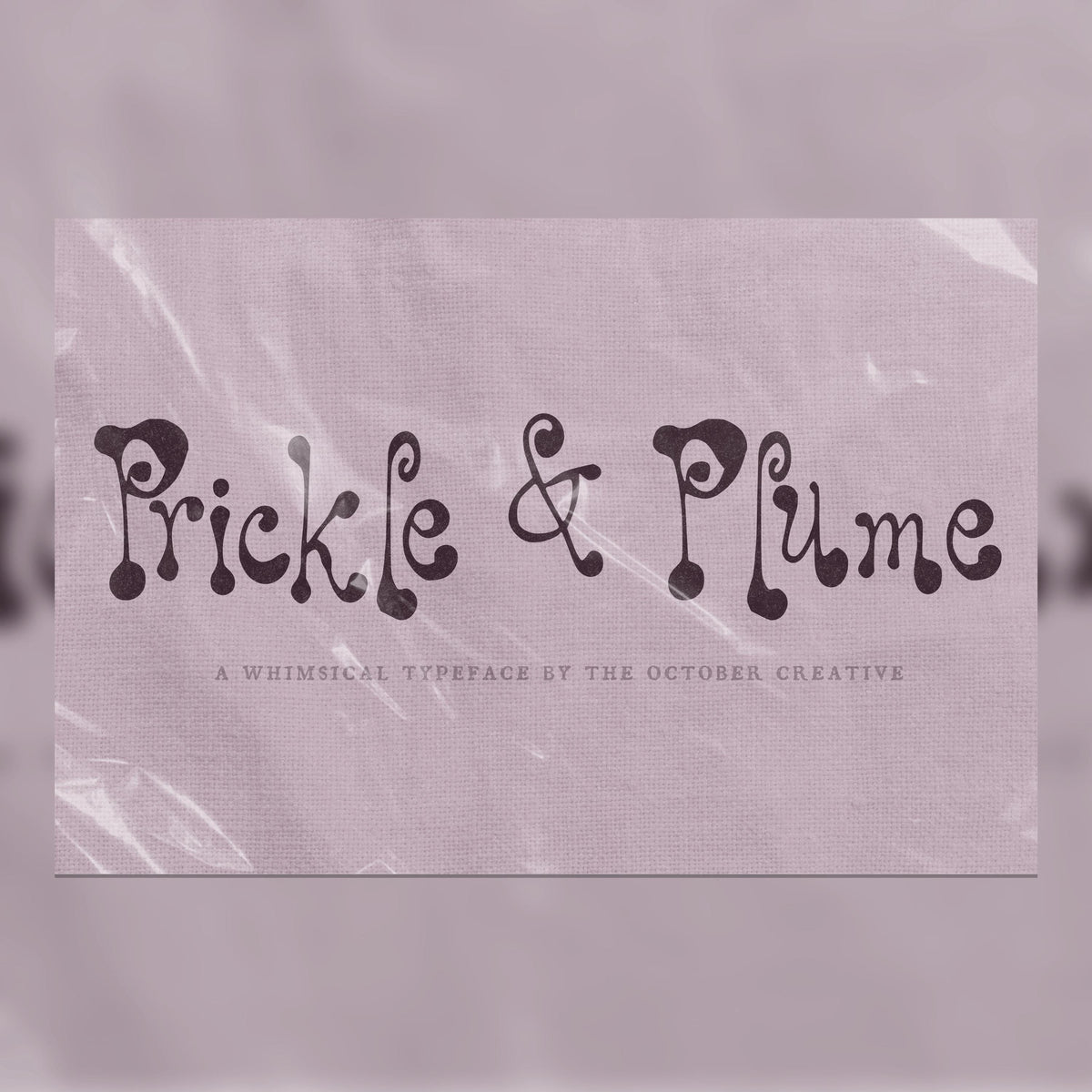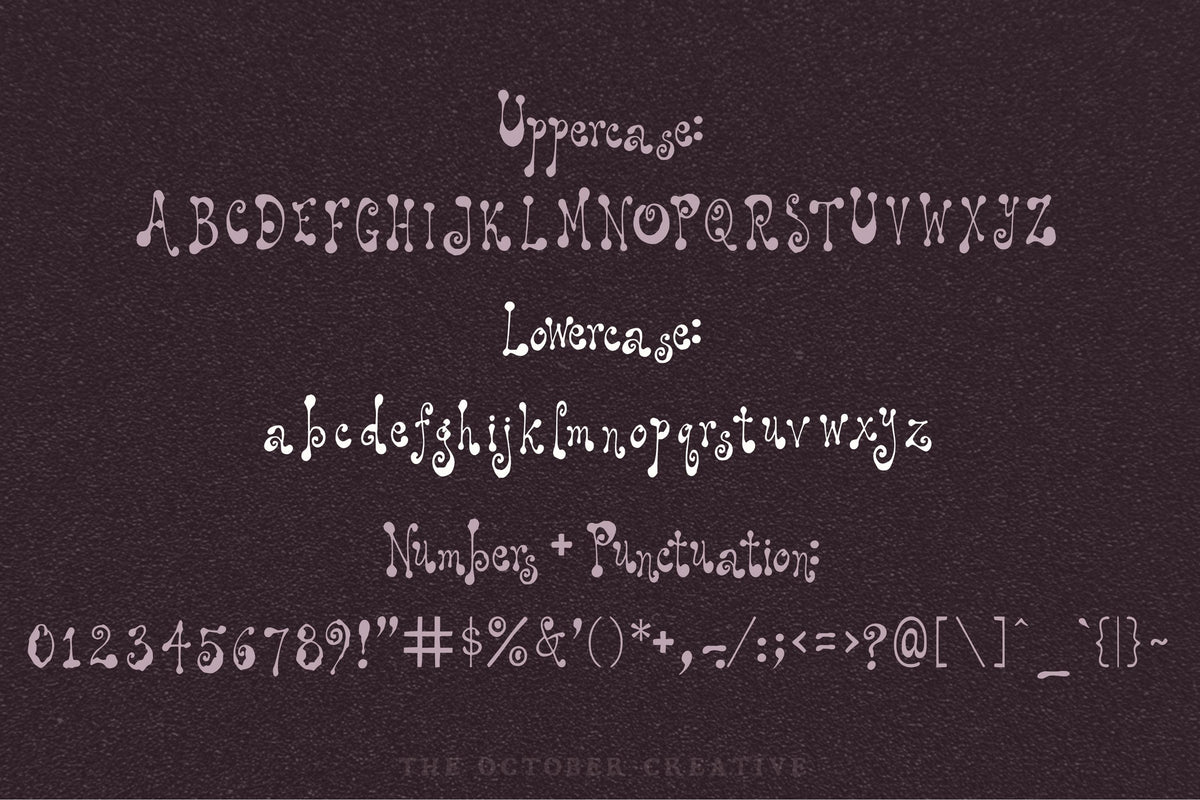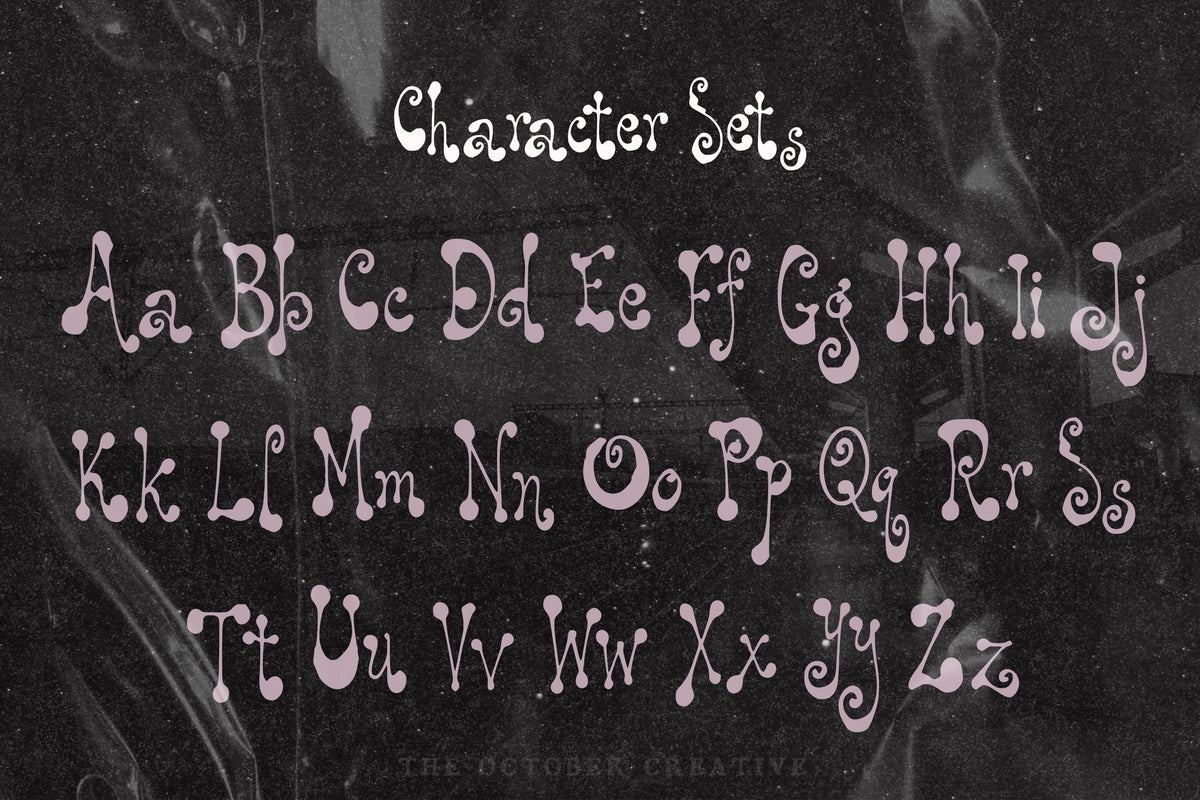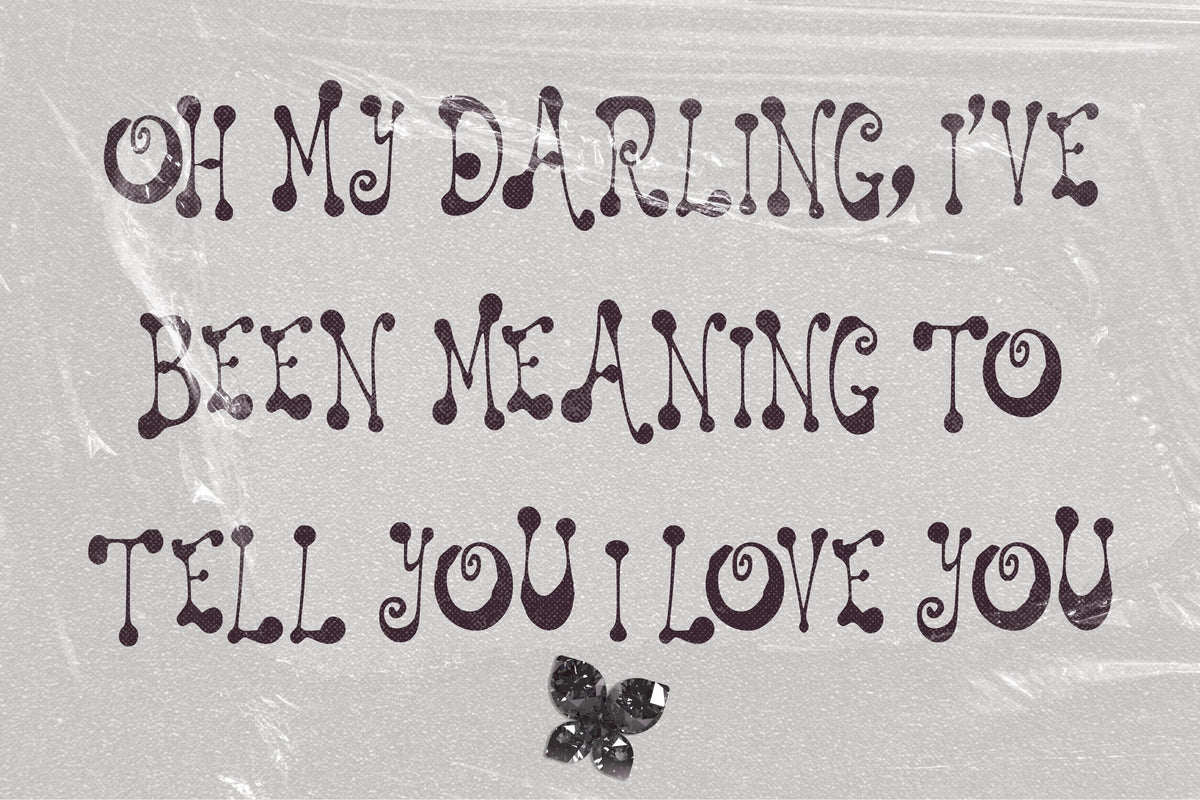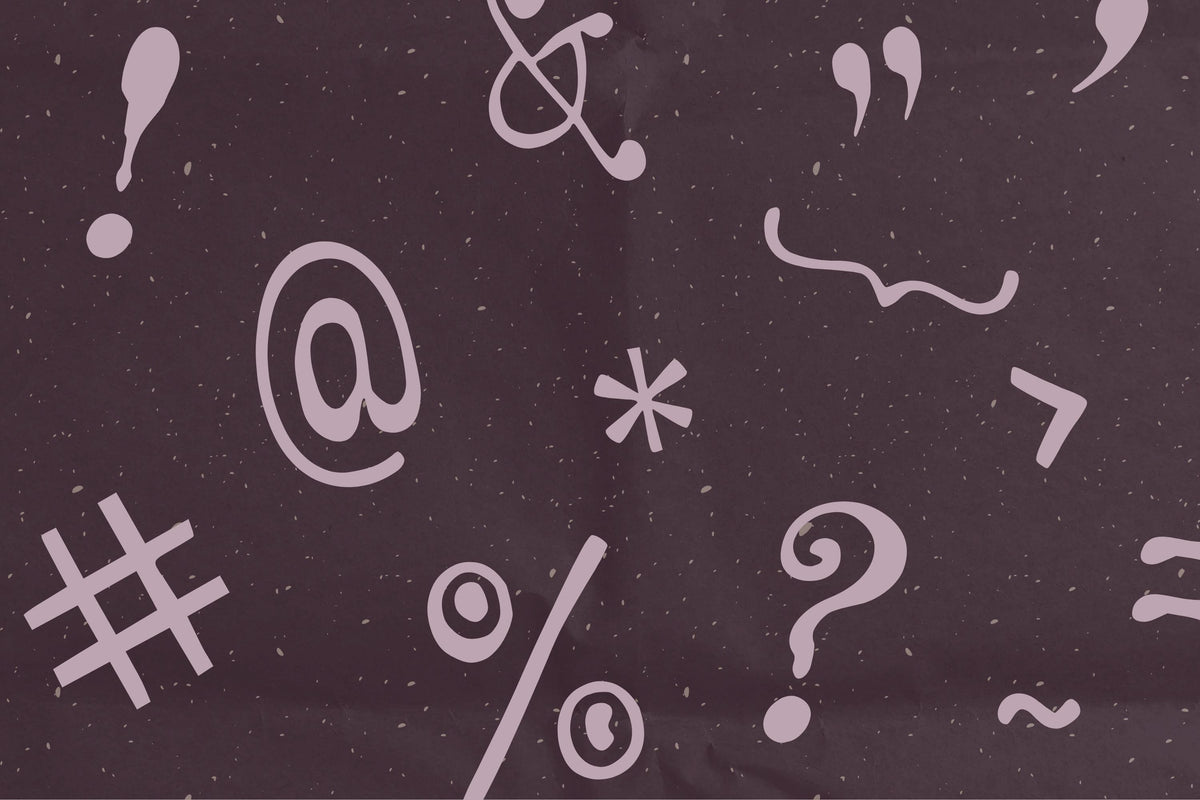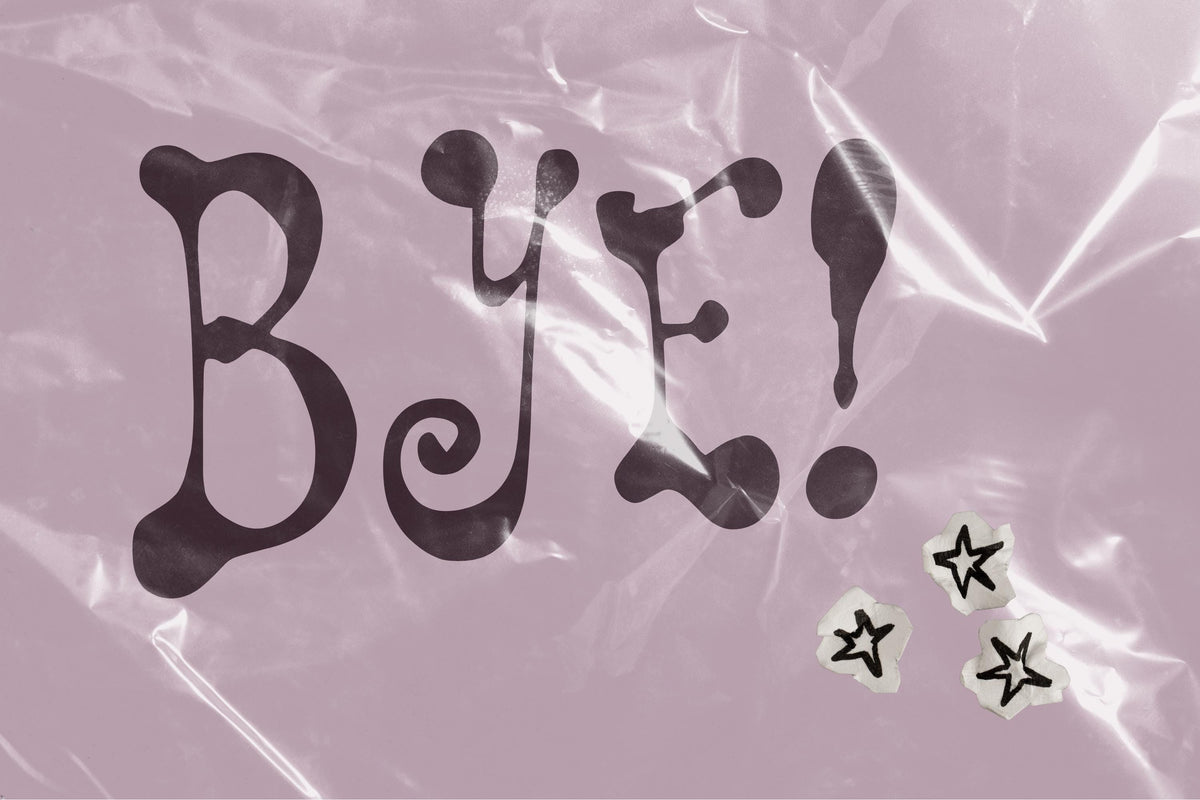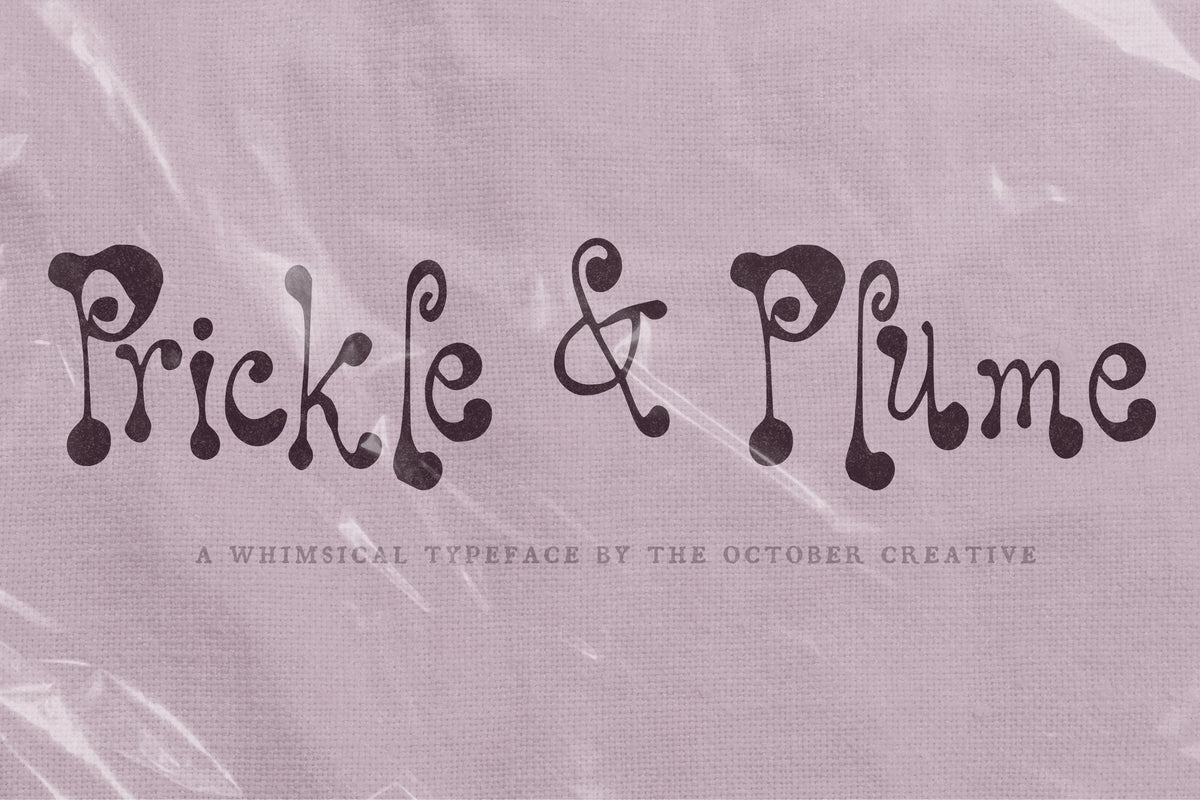
Prickle & Plume Font
Prickle & Plume has big, rounded letters with wonderfully plump ends that make a name feel friendly. Give it a turn on shop logos, packaging, and cheerful stickers where the lettering can be part of the fun.
• One style: Prickle & Plume Regular
• Uppercase A to Z, lowercase a to z, numbers 0 to 9, and every standard keyboard punctuation mark and symbol
• Curly quotes and apostrophes, dashes, an ellipsis, and a bullet
• Common accented letters for names, like José, Chloé, Zoë, Renée, and Françoise
• One Regular style, with no alternate characters or ligatures.